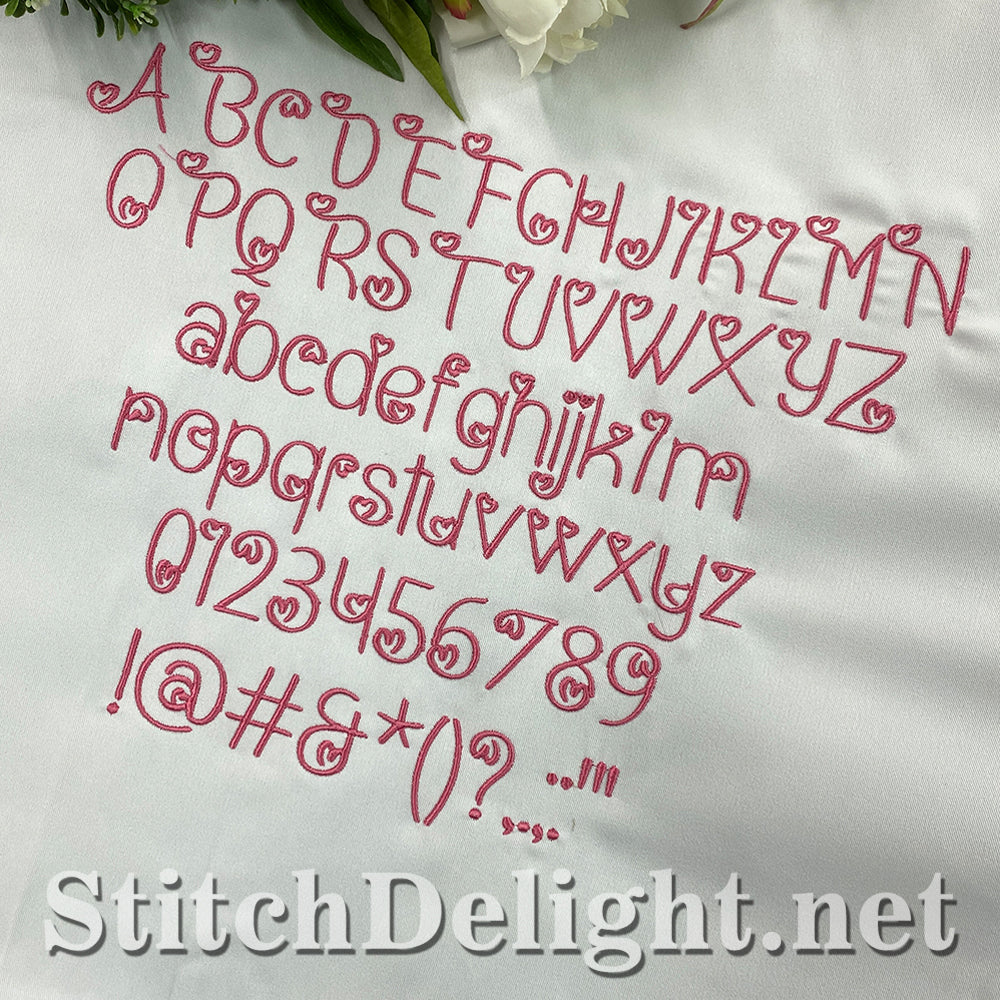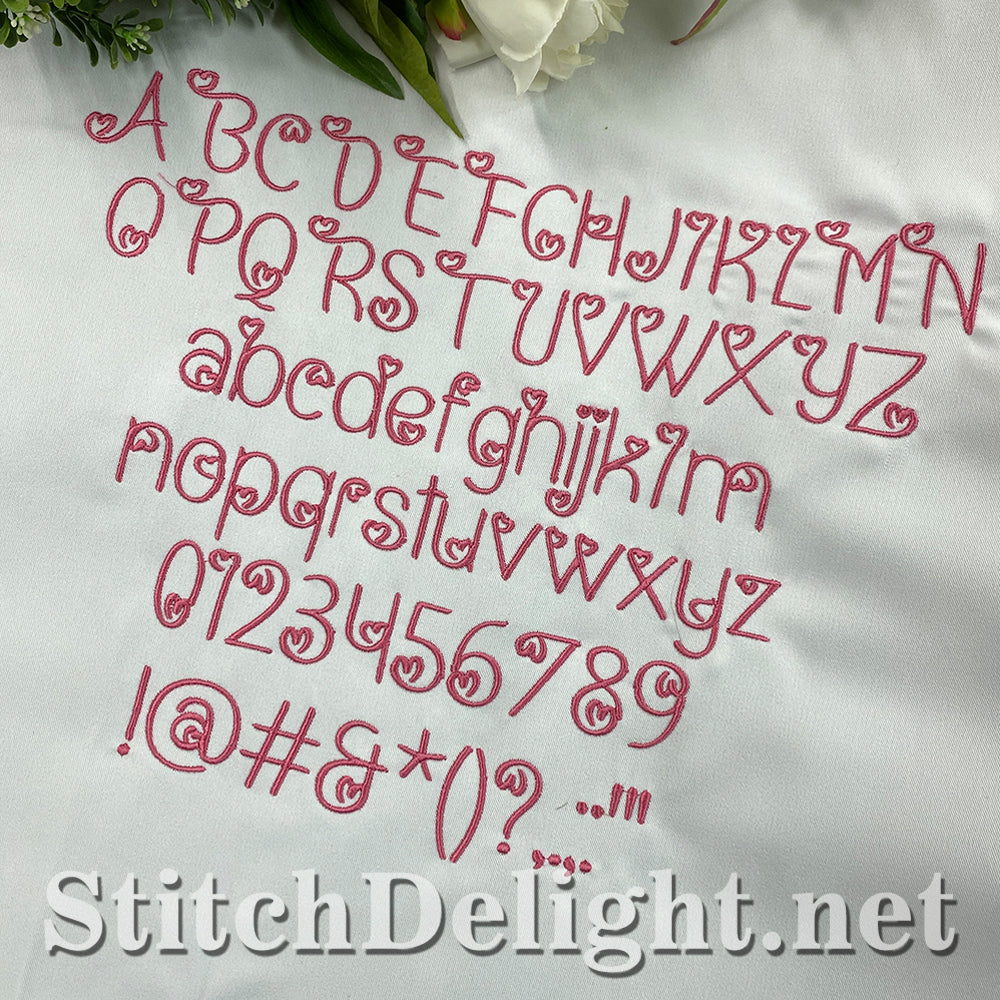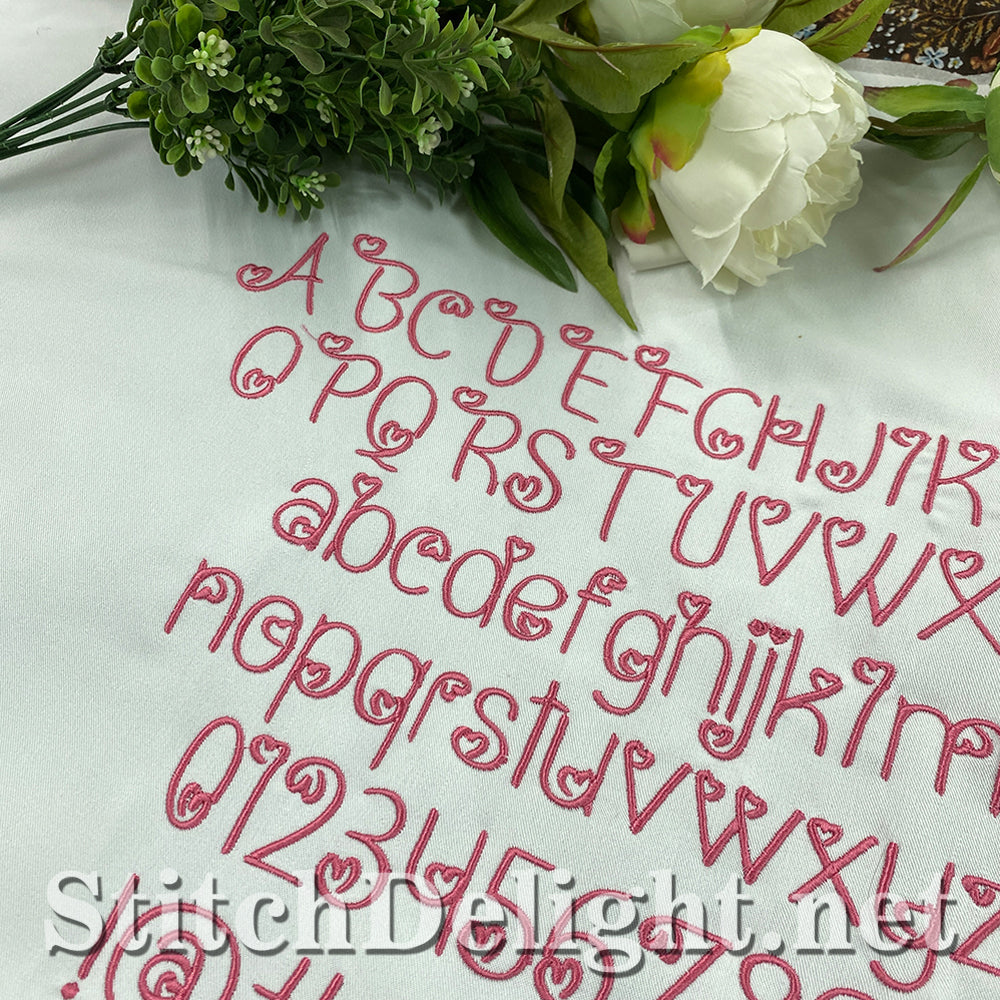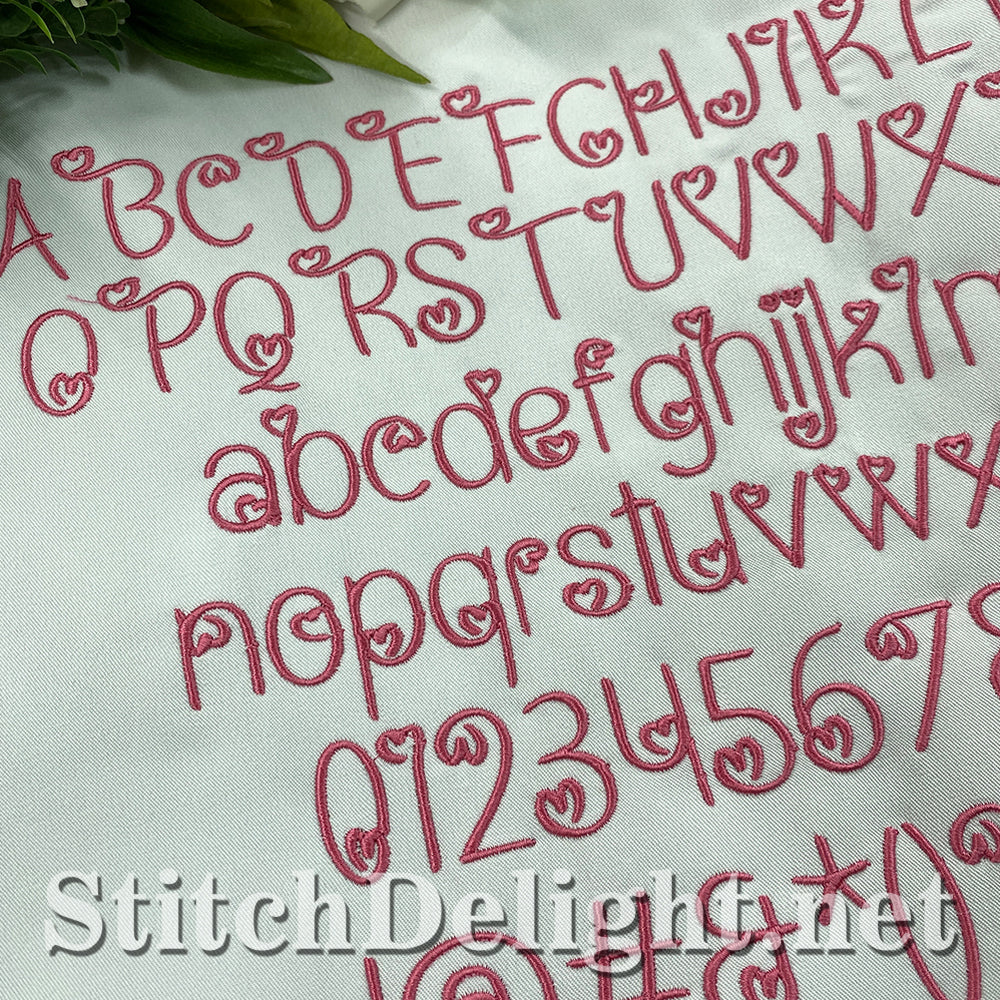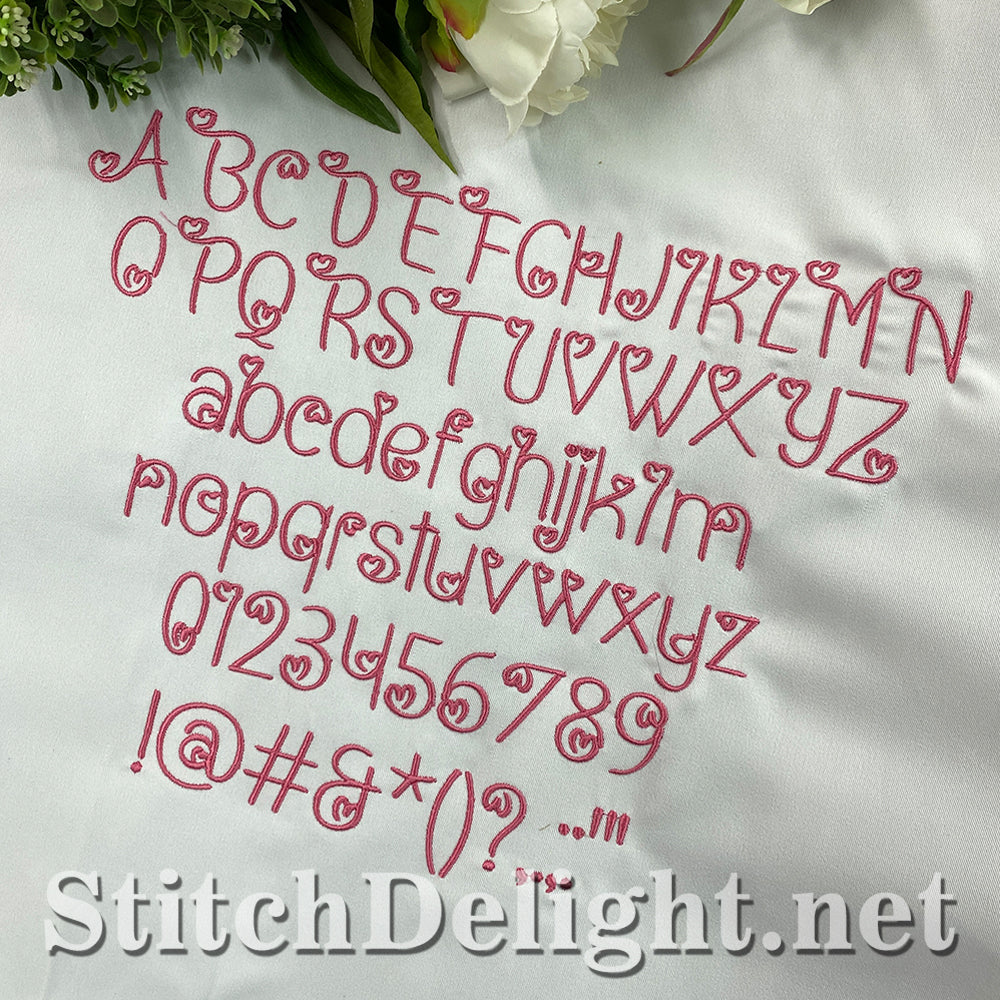
Cute little hearts ornate these letters making them perfect for any occasion where you want to spread some love - Valentine's, Mothers day even for Christmas fonts. BX Format included